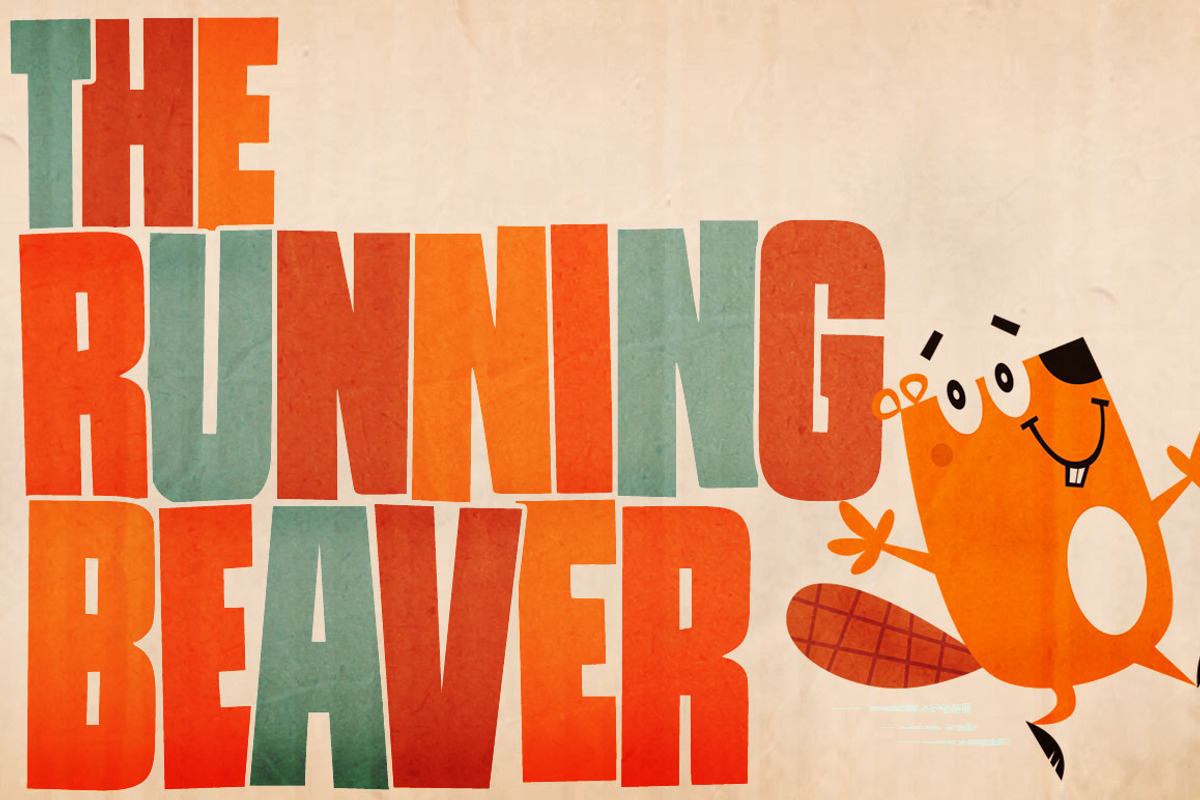
You must purchase this font for commercial use. However, you can download Tremendous - 3 Quite Handy Fonts Free Download for testing purposes. Tremendous is a versatile font bundle featuring three distinct but complementary typefaces, making it perfect for a wide range of design projects. Whether you're creating a bold headline, crafting a stylish logo, or working on branding, this collection has the flexibility to handle any task.
The bundle includes three fonts, each with its own unique style, ranging from clean and modern to creative and playful. These fonts are ideal for branding, posters, social media content, packaging, and more, offering diverse design options while maintaining a cohesive look.